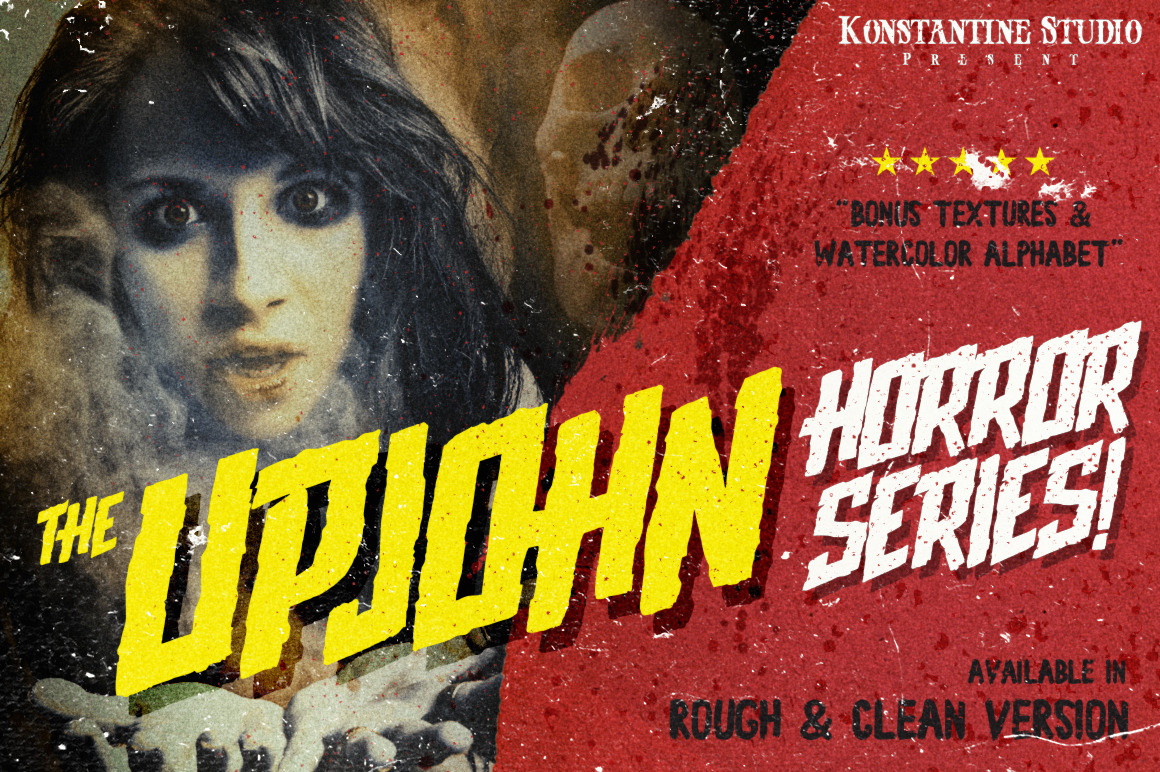
Upjohn Halloween Brush horror font
The Upjohn Typeface
Inspired from Horror and Thriller movie posters back in old era, with bold and solid stroke styles that pointed to the instant-retro feels when you drop it to your vintage or retro design project